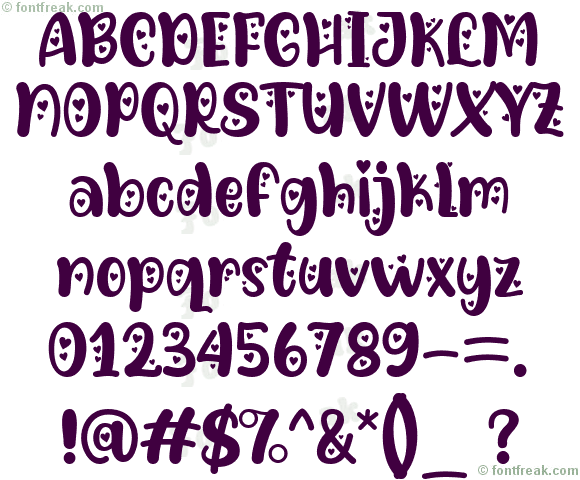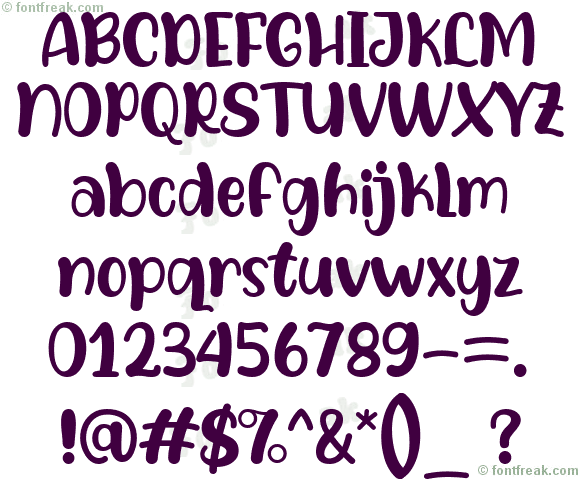
Lova Bear Two
Lova Bear
About Lova Bear Two
Lova Bear Two is a captivating display font designed by Situjuh Nazara, released in 2020 under a freeware license. This whimsical typeface falls into the decorative category, characterized by its playful and rounded letterforms that evoke a sense of fun and creativity. The font's unique visual characteristics include a medium stroke weight with minimal contrast, making it both approachable and easy to read. Each character features charming decorative elements, such as heart motifs embedded within some letters, further enhancing its delightful aesthetic. The spacing between the letters is generous, allowing for clear legibility while maintaining a friendly and informal vibe.
This font is well-suited for a variety of creative applications. It shines in contexts like children's book covers, where its playful nature can capture the attention of young readers. Lova Bear Two is also ideal for designing vibrant wedding invitations, adding a touch of whimsy to the celebration. Additionally, it can be effectively utilized in social media graphics, helping content creators convey a lighthearted message. Restaurant menus, particularly for family-friendly eateries, can benefit from this font's inviting appearance, making the dining experience feel more welcoming.
Targeting graphic designers, small business owners, and content creators, Lova Bear Two offers a delightful option for anyone looking to add a unique flair to their projects. Its free availability makes it accessible for a wide range of users, from hobbyists to professionals. The Lova Bear Two font free download provides an opportunity to incorporate this charming typeface into various designs, ensuring that your work stands out. Its distinctive style and versatility make Lova Bear Two an excellent choice for those seeking to infuse their projects with joy and creativity.